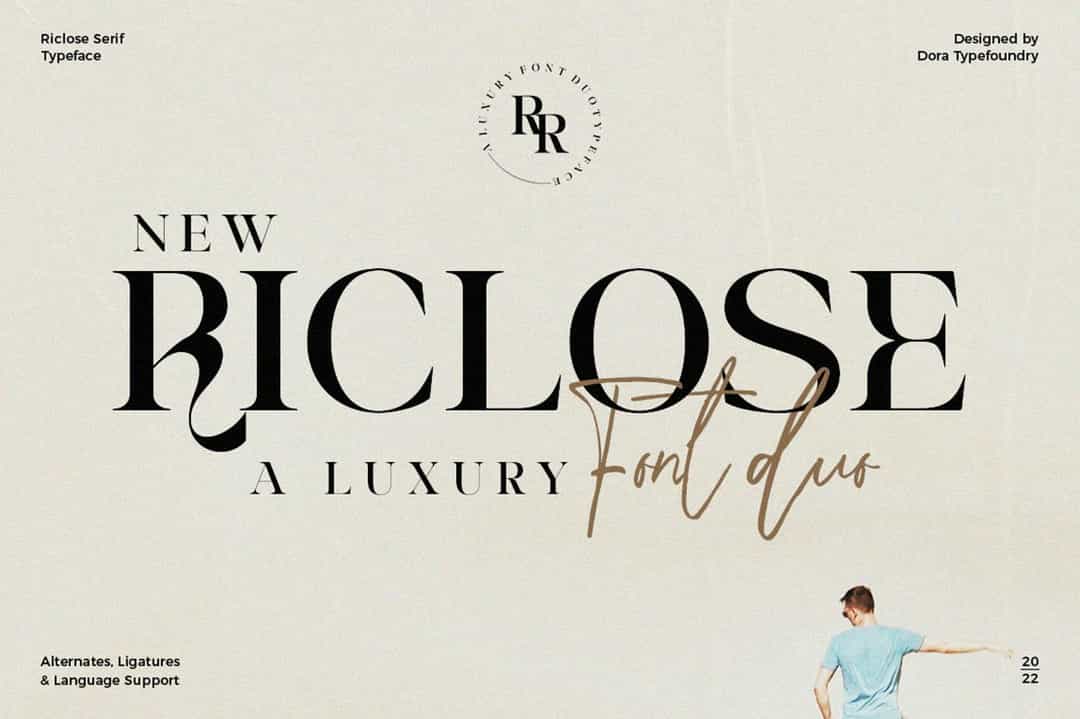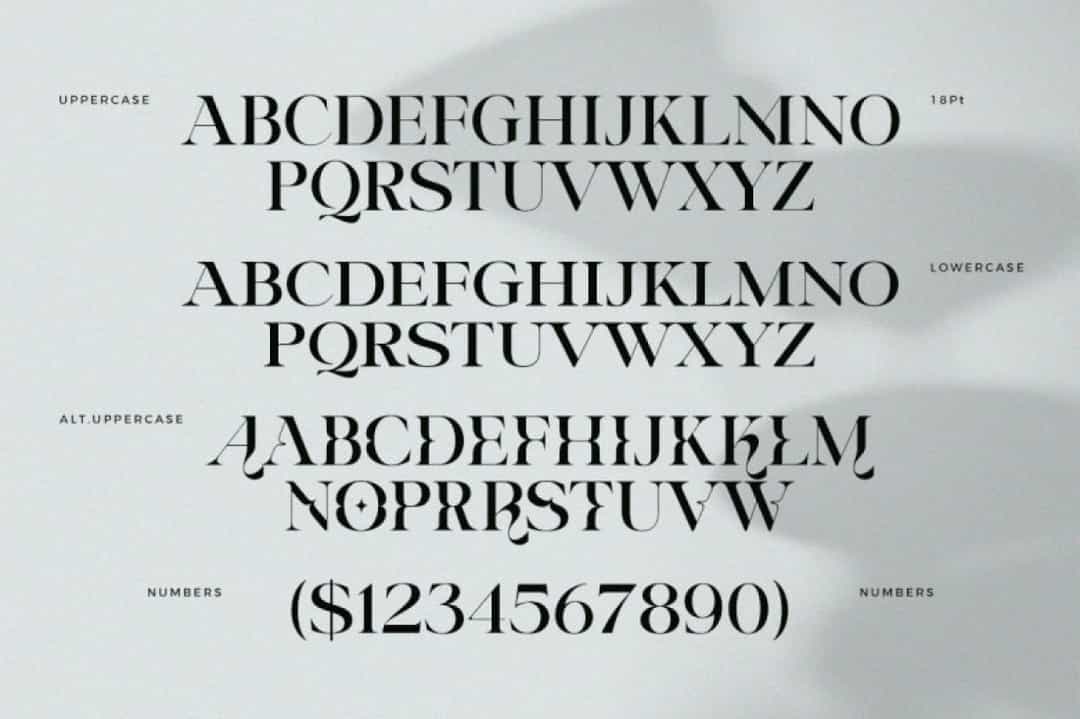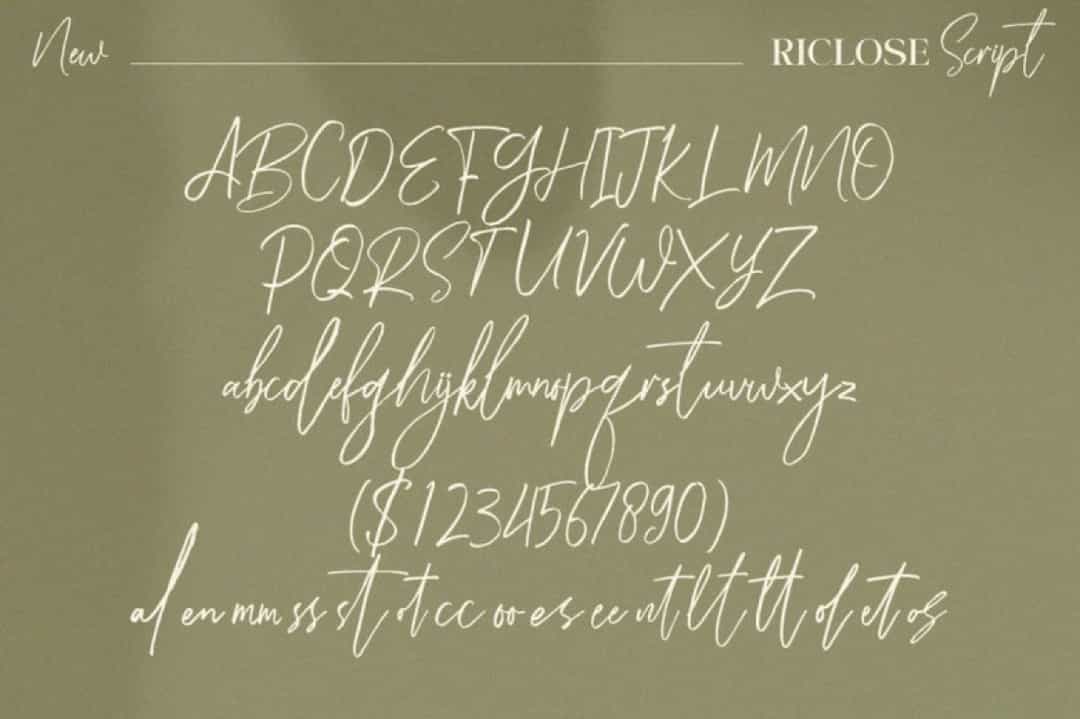
Discover Riclose Font, part of the Handwritten Serif collection—a versatile and unique font perfect for adding a personal touch to your projects. Download it for free and enjoy crafting designs with style, from invitations to social media posts. This font is available exclusively for personal use, giving you the freedom to create without limits. Unlock your creativity with Riclose Font today!
Riclose is an exquisite collection of two modern and sophisticated fonts. Boasting both serif fonts as well as handwritten script fonts, Riclose creates stunning typographic harmonies ideal for various design tasks including logos and wedding designs, branding campaigns, social media posts, advertisements and product designs.